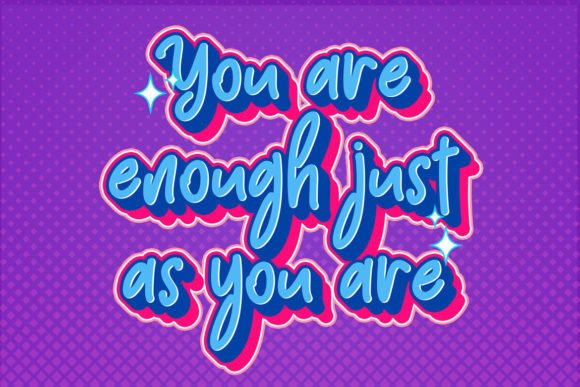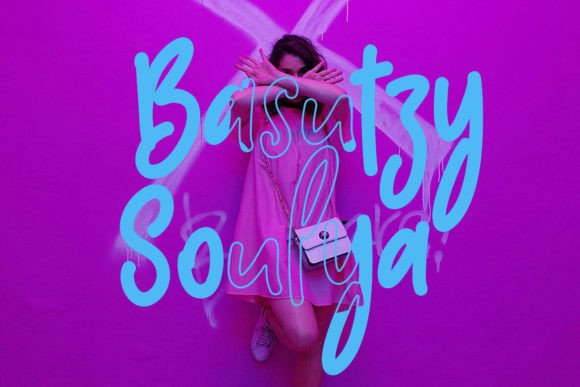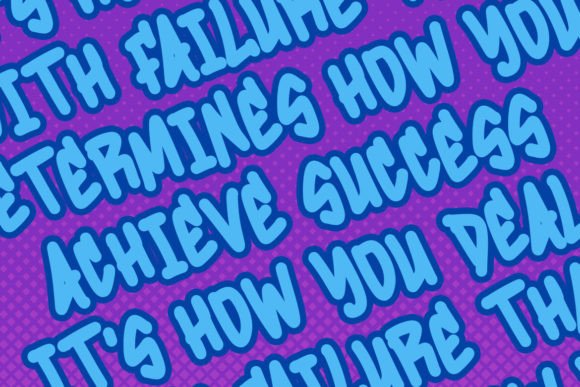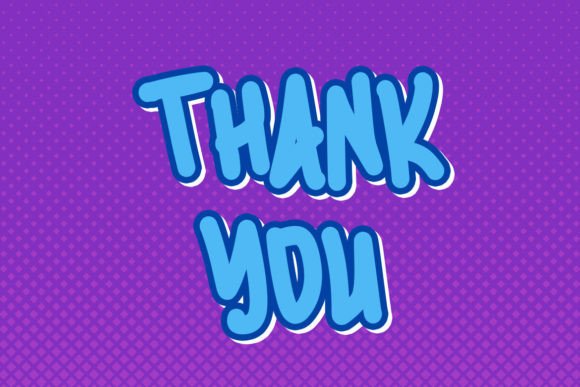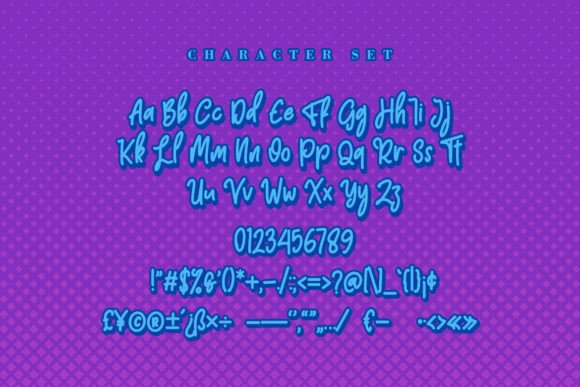
Discover the Charm of Basutzy Font: Elevate Your Designs with a Handwritten Script
Are you tired of using generic fonts that lack personality in your designs? Look no further than the Basutzy font, a beautiful handwritten script that adds a touch of elegance and sophistication to any project. With its natural flow and stunning style, Basutzy is perfect for designers and crafters seeking to create unique and eye-catching designs.
What Makes Basutzy Font Special?
Basutzy font is a carefully crafted handwritten script that exudes a sense of warmth and personality. Its natural flow and beautiful style make it an ideal choice for a wide range of design projects, from invitation designs to branding, logos, and social media posts. Unlike generic fonts, Basutzy adds a human touch to your designs, making them more relatable and engaging.
Basutzy font is incredibly versatile and can be used in various design projects, including:
- Invitation design projects: Create stunning wedding invitations, birthday invitations, or any other type of invitation that requires a personal touch.
- Prewedding designs: Add a romantic touch to your prewedding designs, such as save-the-date cards or engagement announcements.
- Branding and logos: Use Basutzy font to create a unique and memorable brand identity that sets you apart from the competition.
- Wedding designs: From wedding stationery to wedding signage, Basutzy font is perfect for creating beautiful and elegant wedding designs.
- Social media posts: Add a personal touch to your social media posts and make them stand out from the crowd.
- Advertisements: Use Basutzy font to create eye-catching advertisements that grab attention and leave a lasting impression.
- Product packaging: Elevate your product packaging with a beautiful and elegant font that reflects your brand’s personality.
- Product design: Use Basutzy font to create stunning product designs that showcase your brand’s style and sophistication.
- Labels and photography: Add a personal touch to your labels and photography with a beautiful handwritten font.
- Watermarks: Use Basutzy font to create elegant watermarks that protect your images and add a touch of sophistication.
Why Choose Basutzy Font?
There are many reasons why Basutzy font stands out from other handwritten fonts:
- Unique and elegant style: Basutzy font has a distinct and beautiful style that adds a touch of sophistication to any design.
- Natural flow: The font’s natural flow makes it easy to read and understand, even at small sizes.
- Versatile: Basutzy font can be used in a wide range of design projects, from formal to informal.
Tips for Using Basutzy Font
To get the most out of Basutzy font, here are some tips to keep in mind:
- Use it sparingly: Basutzy font is best used sparingly to add a touch of elegance and sophistication to your designs.
- Pair it with other fonts: Experiment with pairing Basutzy font with other fonts to create a unique and visually appealing design.
- Adjust the size and color: Adjust the size and color of Basutzy font to fit your design and make it stand out.
Basutzy font is a beautiful handwritten script that adds a touch of elegance and sophistication to any design project. With its natural flow and stunning style, it’s perfect for designers and crafters seeking to create unique and eye-catching designs. Whether you’re working on an invitation design project, branding, or social media post, Basutzy font is sure to elevate your designs and make them stand out from the crowd.